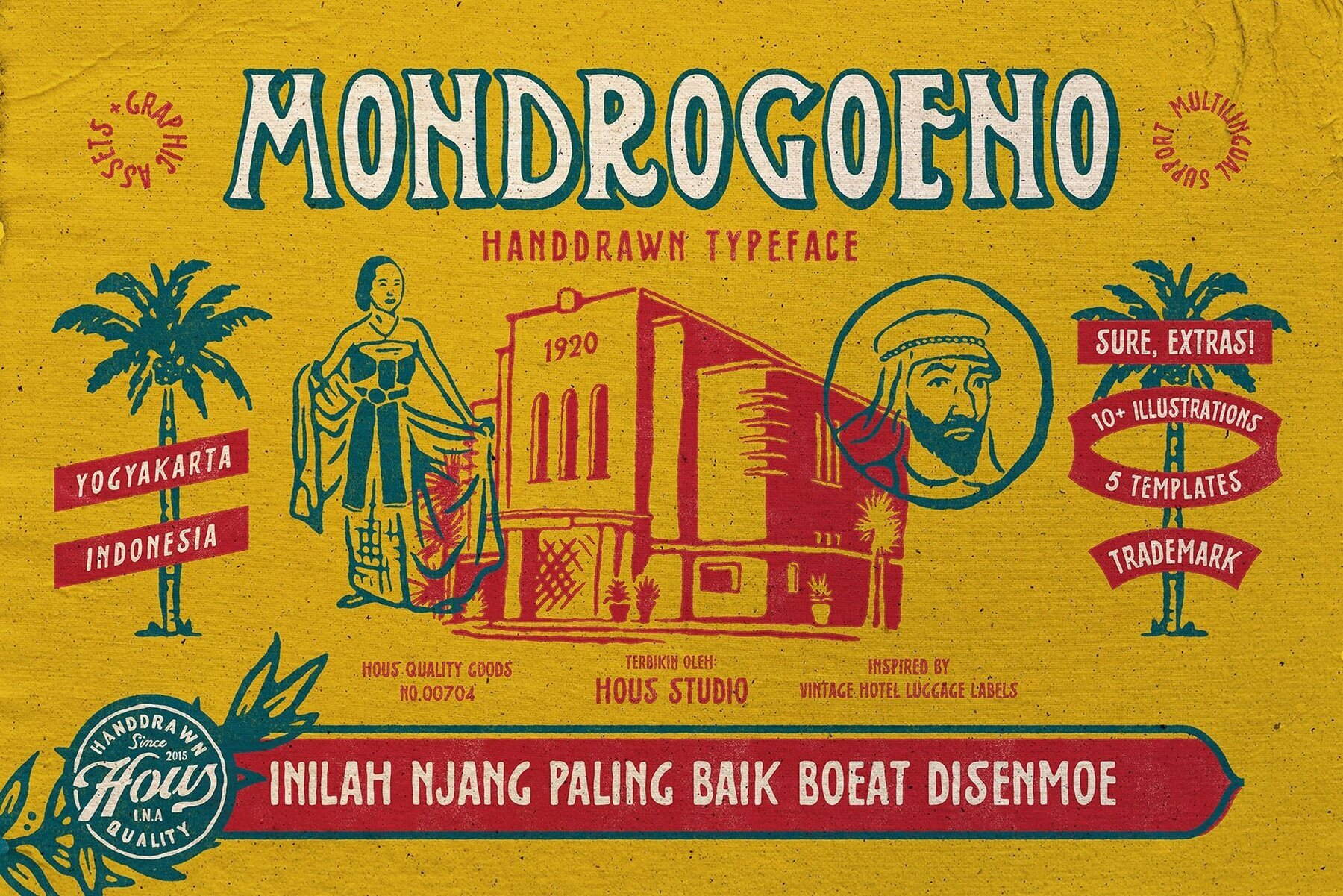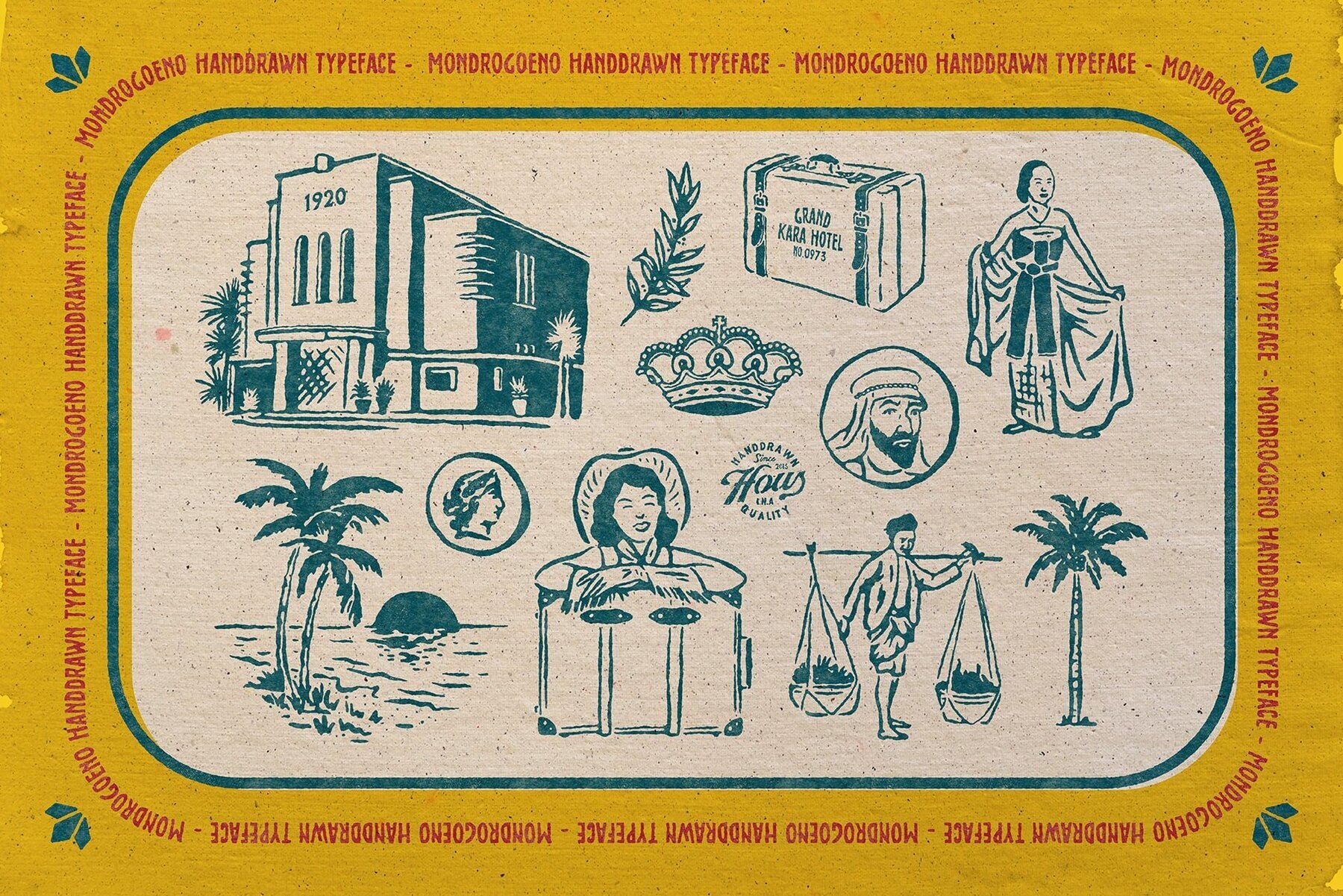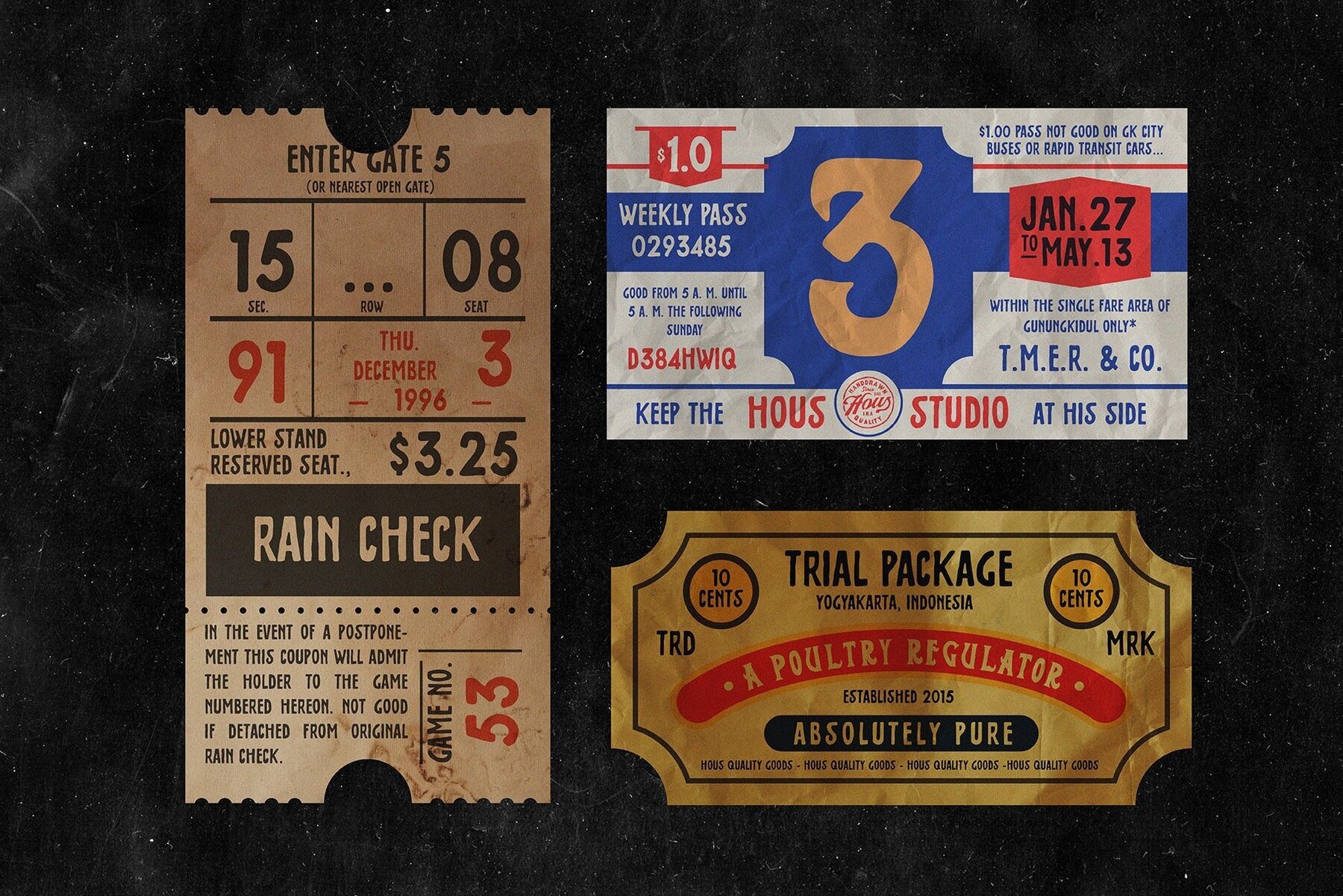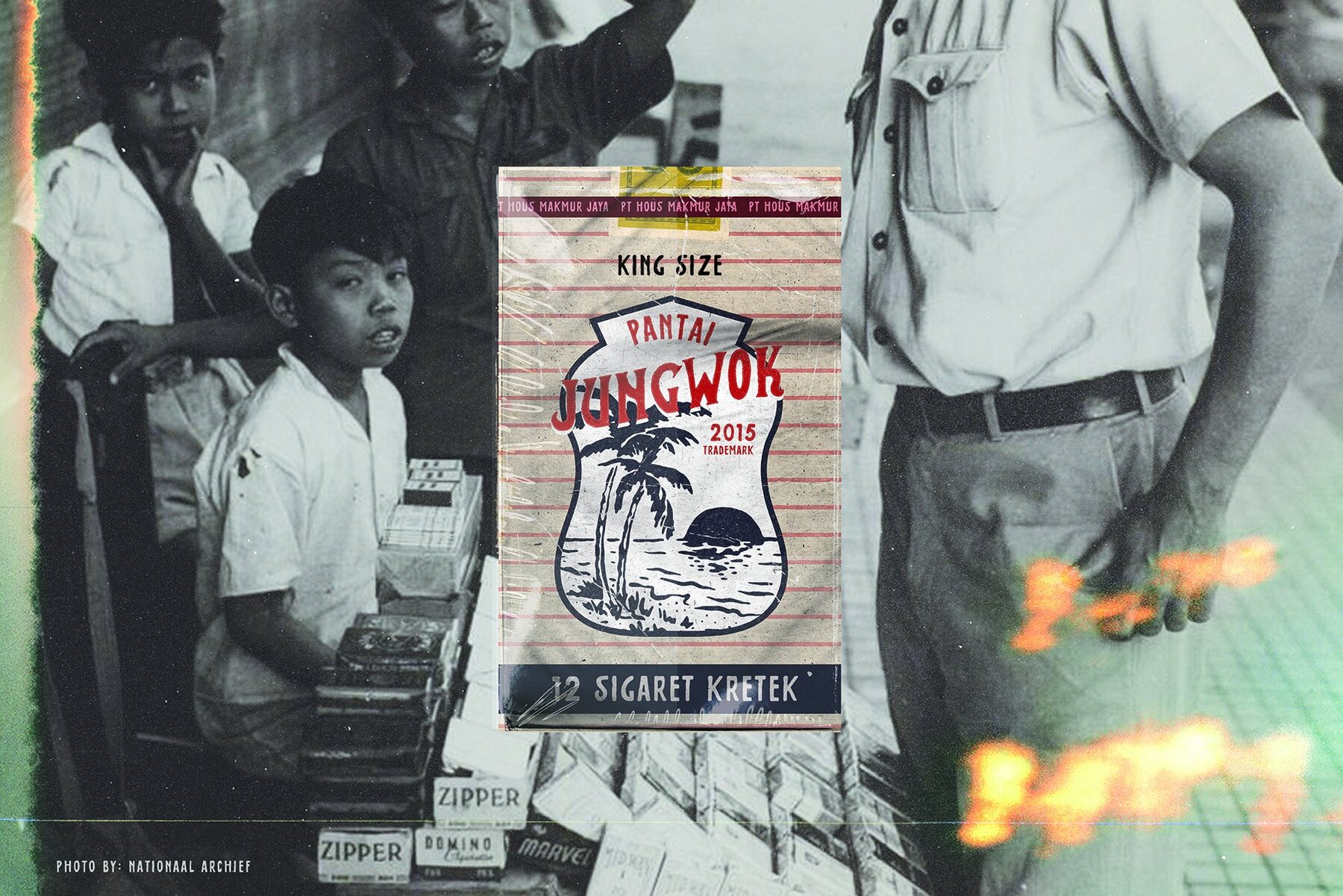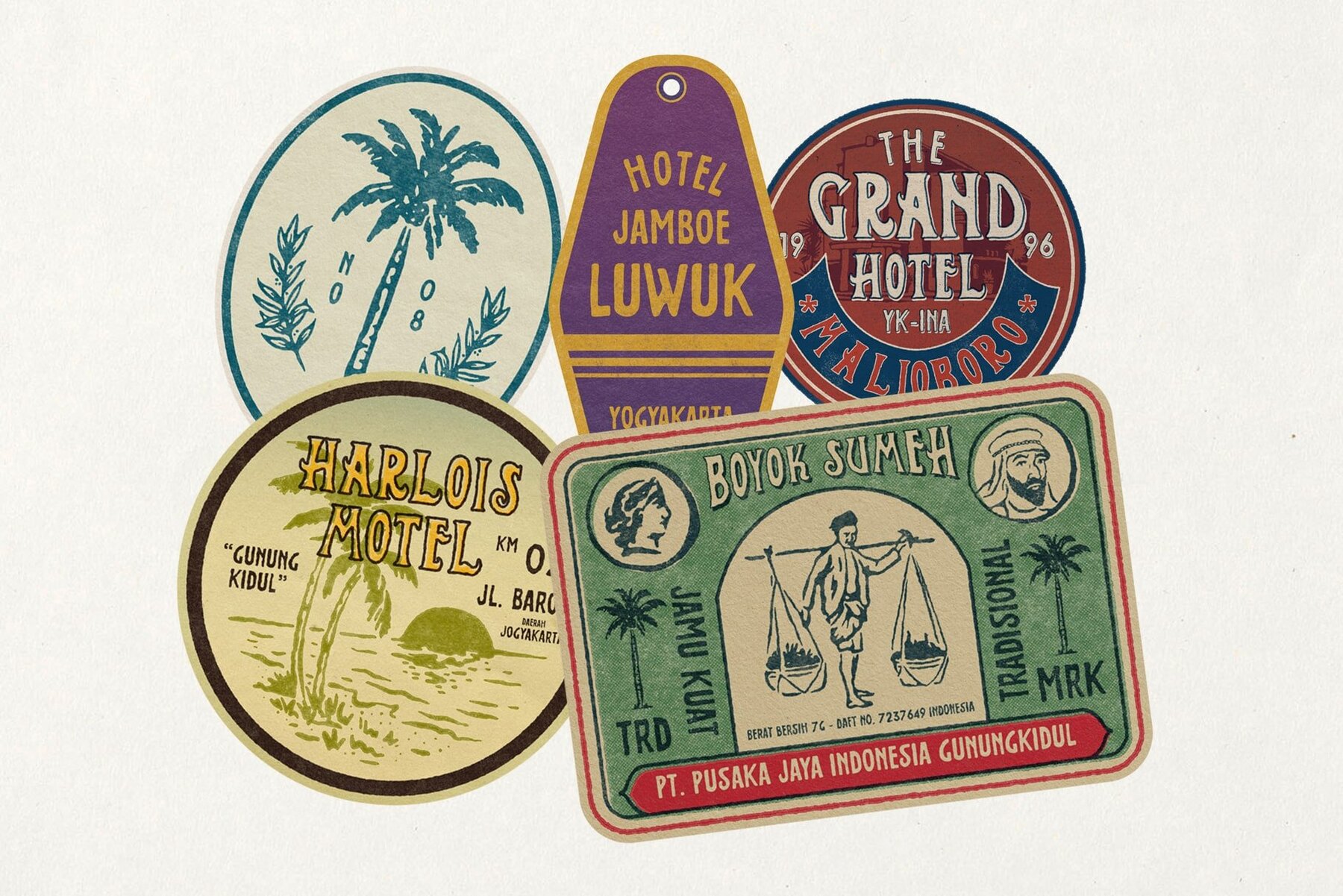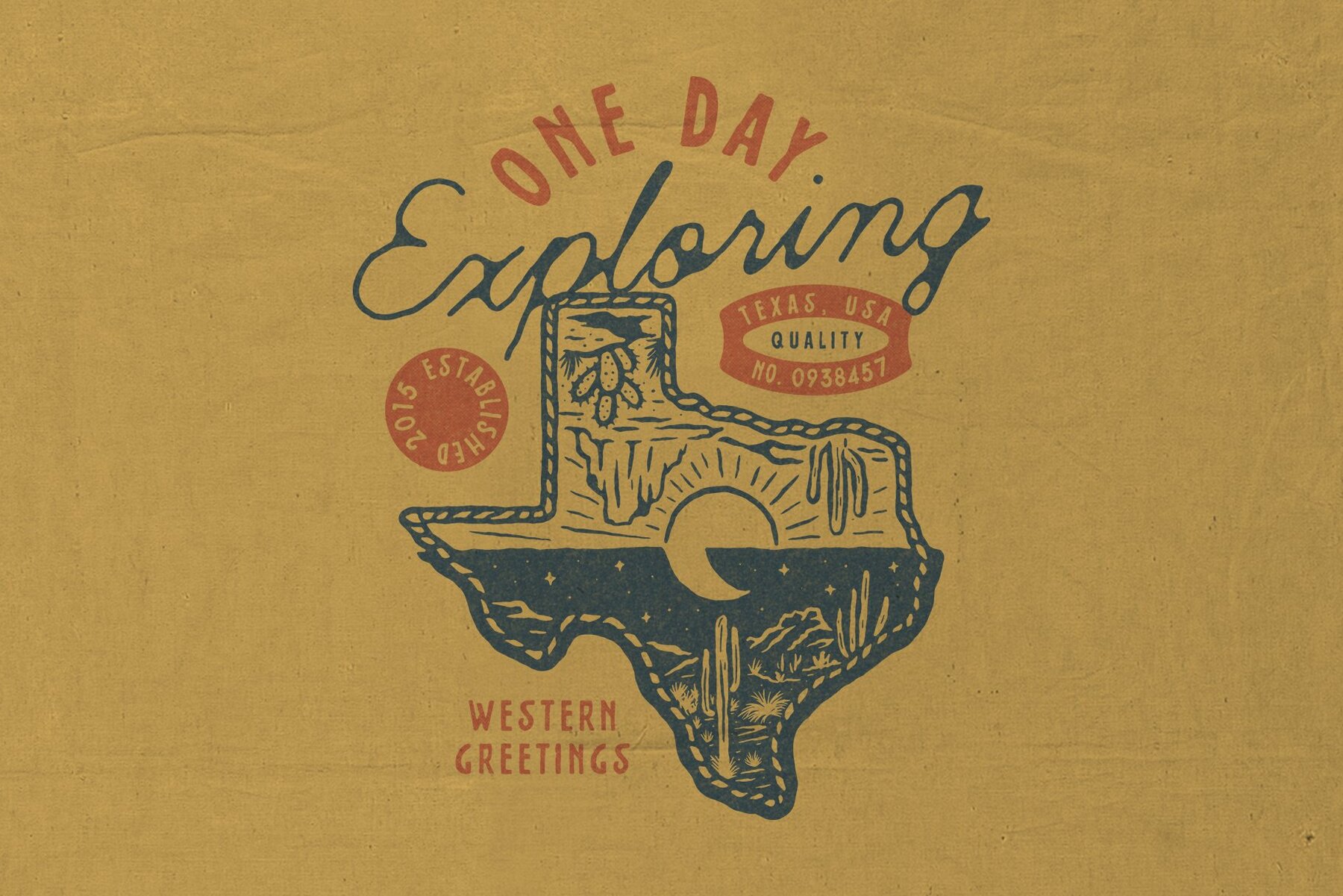
Mondrogoeno Font
Mondrogoeno Typeface by Fahrenno Asnawan draws inspiration from vintage hotel luggage labels. This versatile typeface includes the added benefit of illustrations and five badge templates, perfect for t-shirts, bandanas, labels, and stickers. Enjoy the blend of retro aesthetics and practical applications.